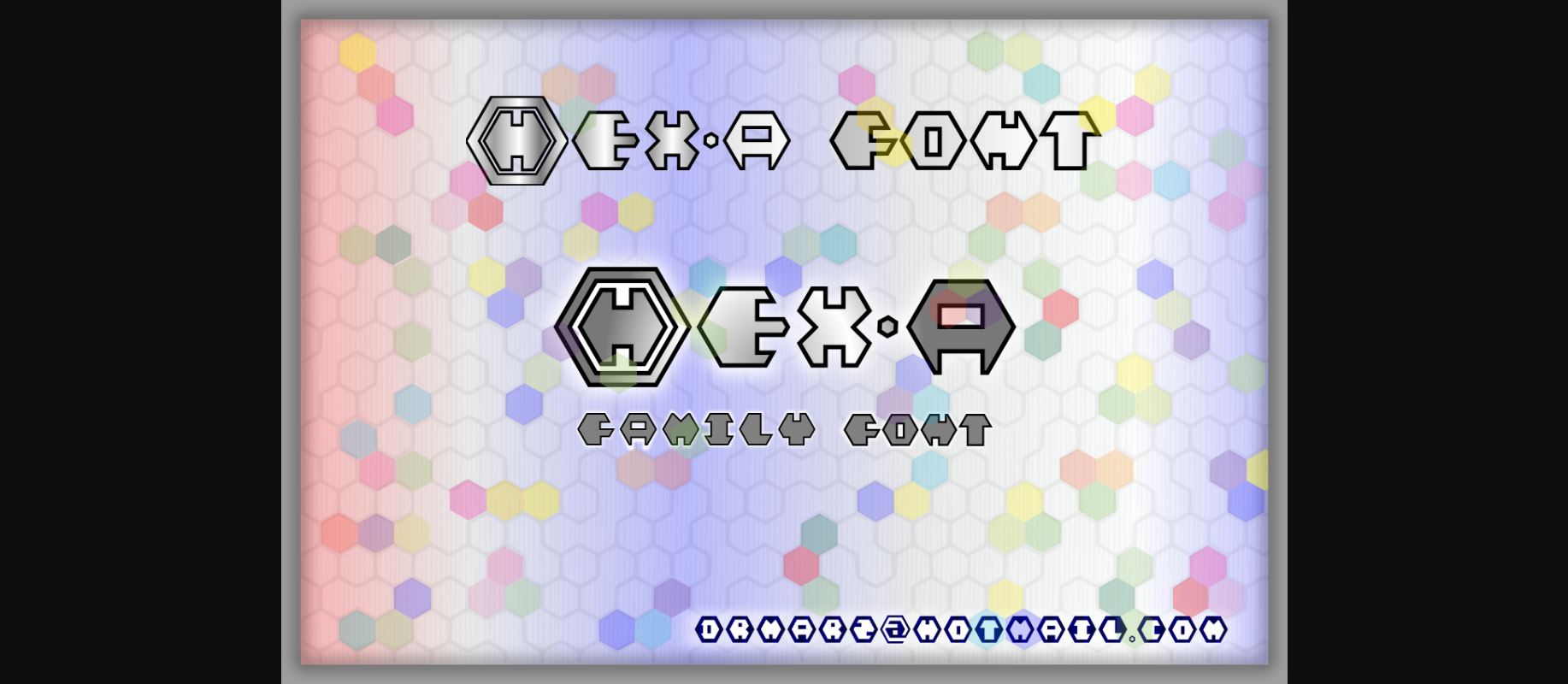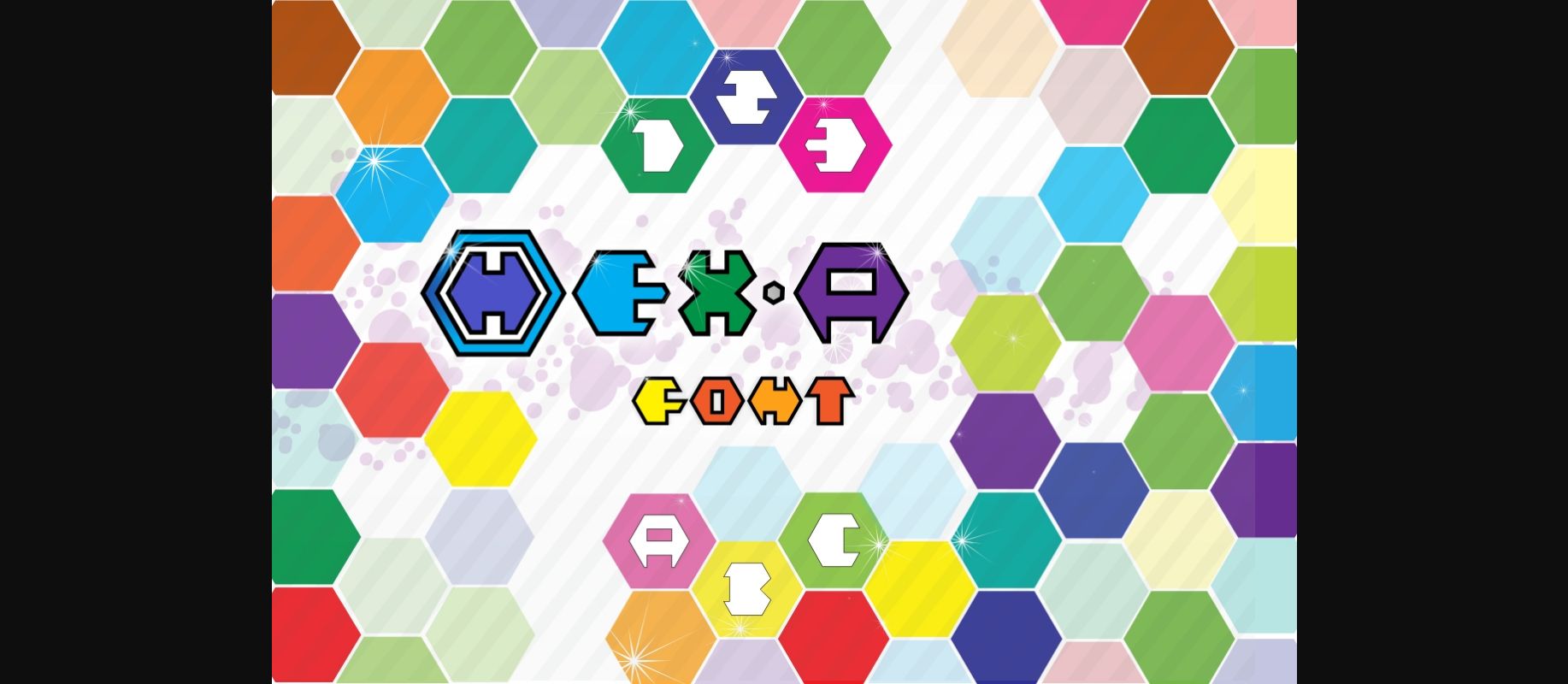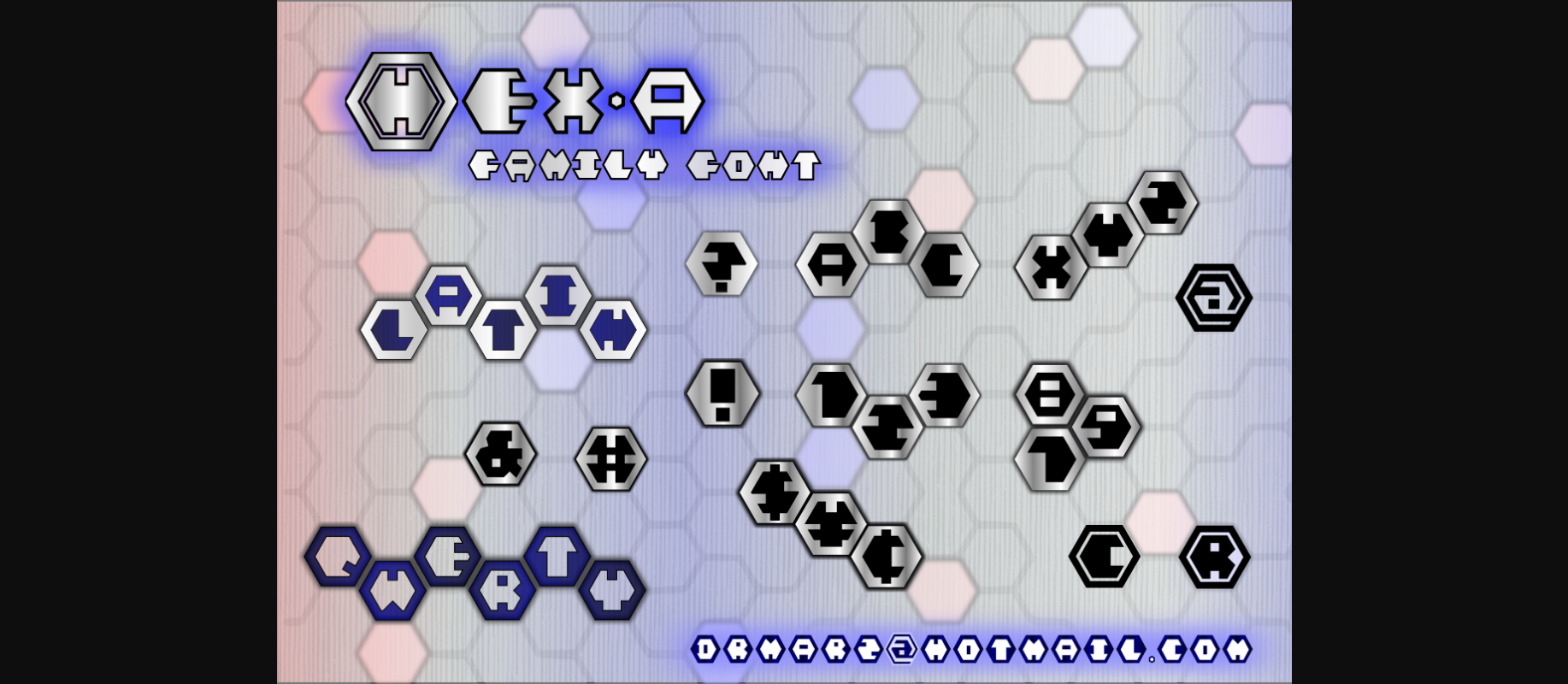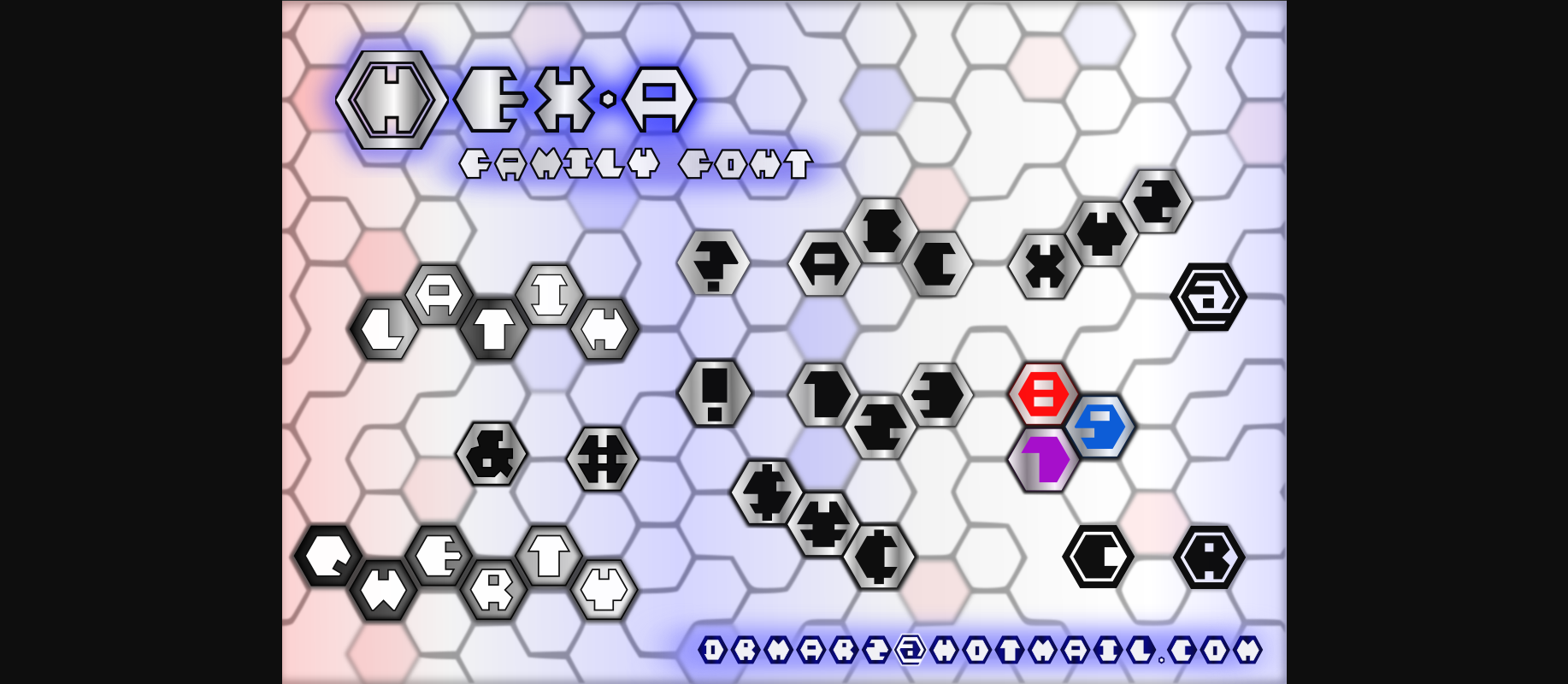
About Hex-a Font
Hex-a is a quirky and unique decorative font. It will add an incredibly joyful touch to your designs. Add this fun and palyful font to each of your creative ideas and notice how it makes them stand out!